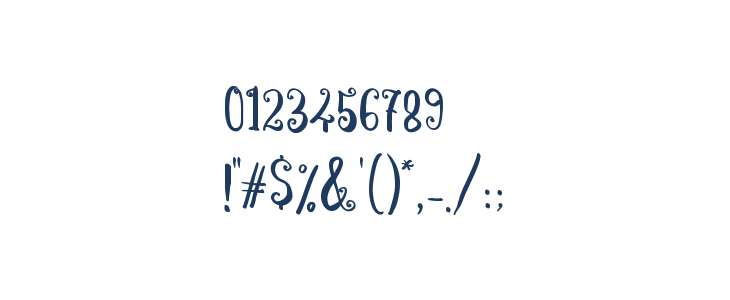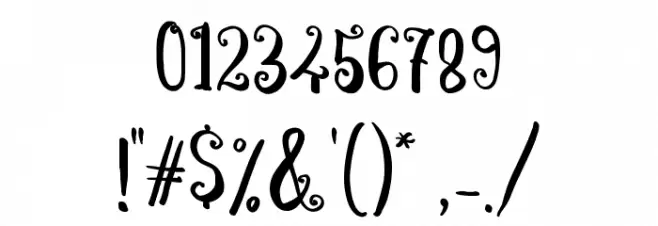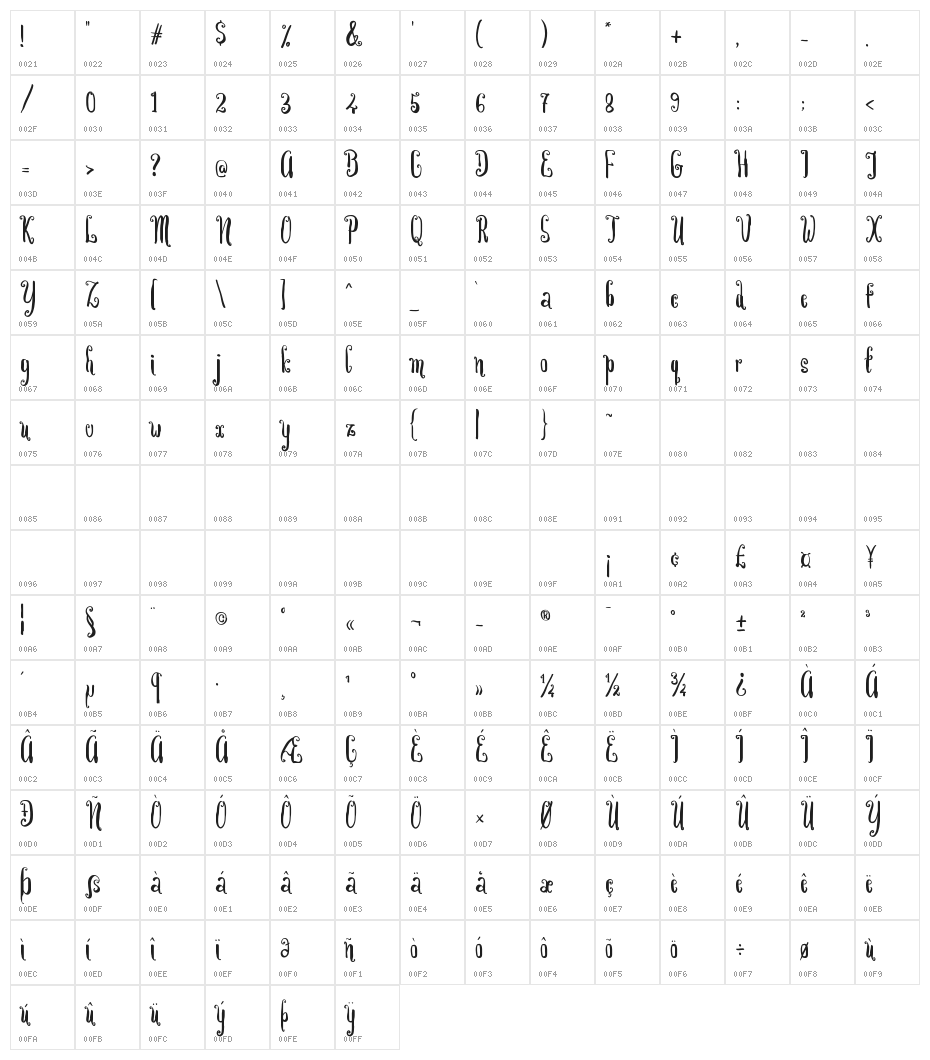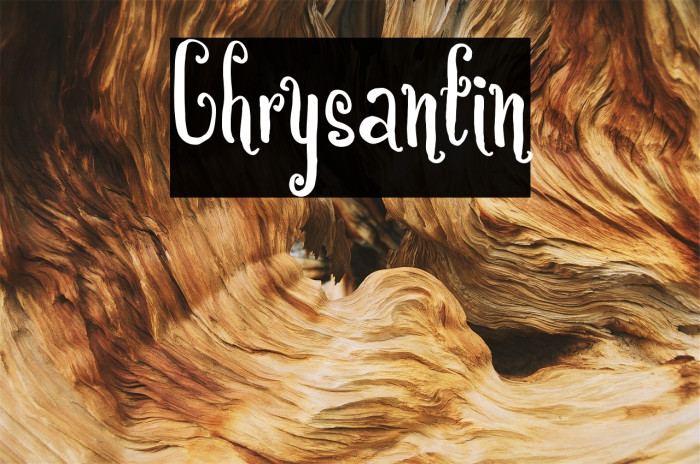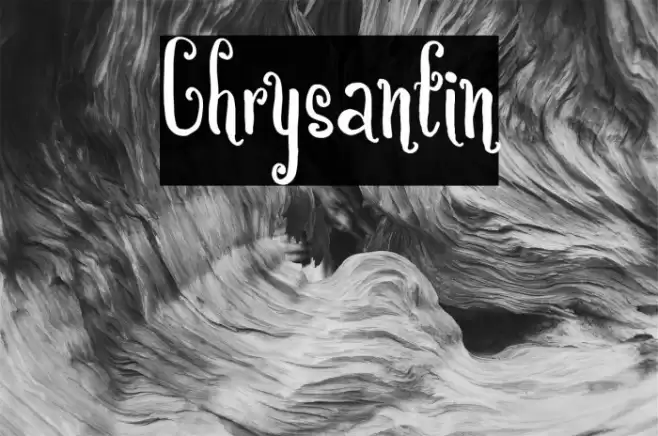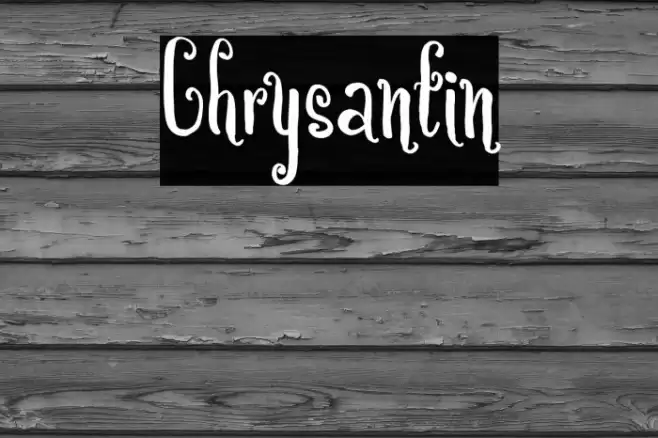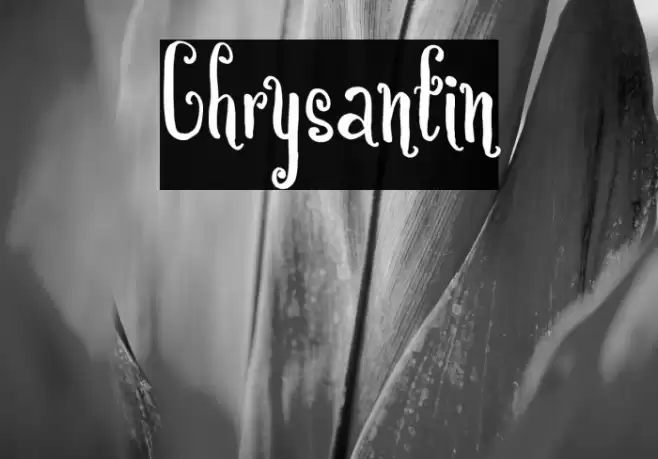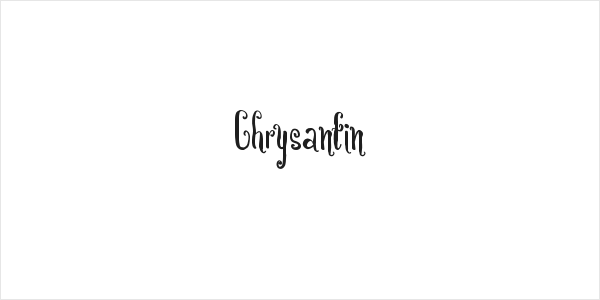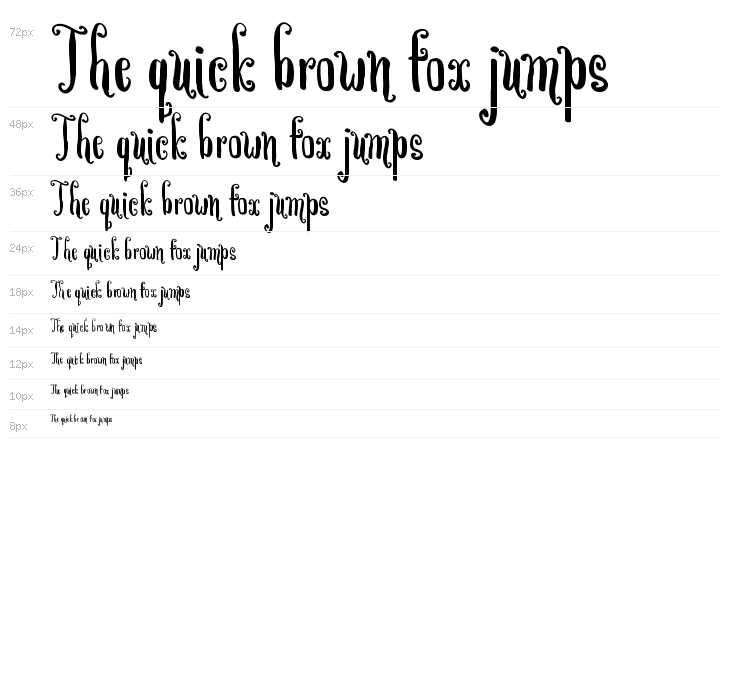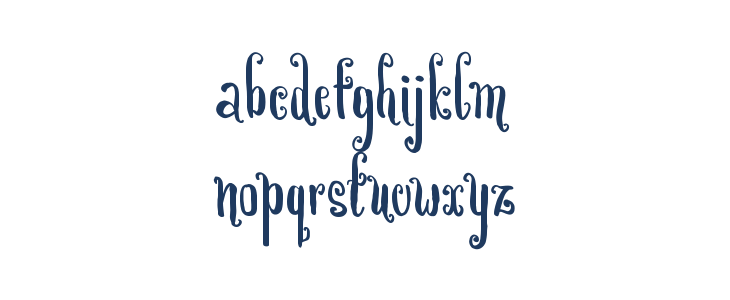
Chrysantin Font
Chrysantin Description
This font features a whimsical and decorative style, characterized by its playful curves and flourishes. The uppercase letters are bold and ornate, with unique swirls that add a touch of elegance and fantasy. The lowercase letters maintain the same decorative flair, ensuring consistency throughout the typeface. Numerals and special characters are equally stylized, making them suitable for creative and artistic projects. The overall design is eye-catching and distinctive, perfect for making a statement in any design context.
| Proposed Projects | Ideal for invitations, greeting cards, posters, and branding that requires a touch of elegance and creativity. |